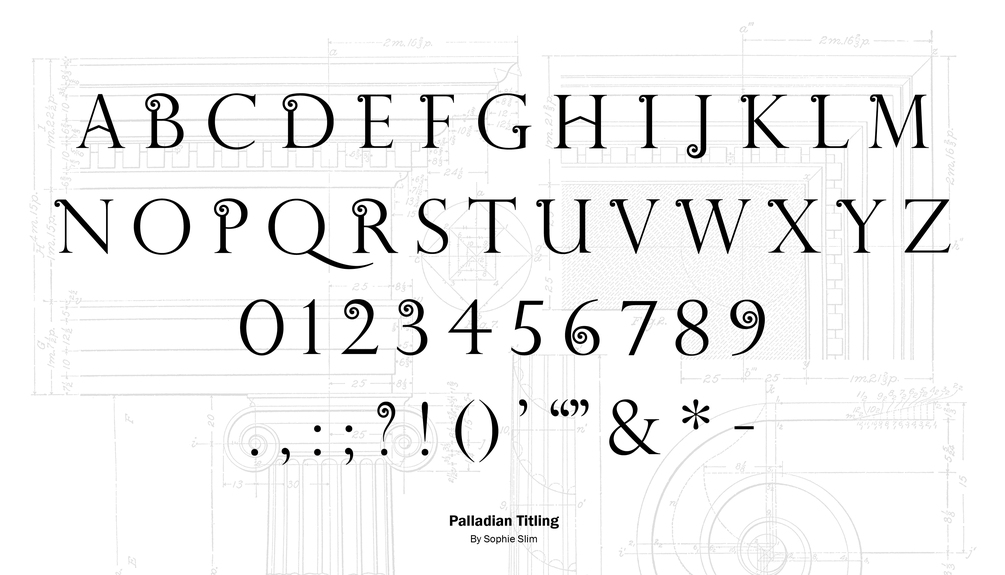
Palladian Titling
Palladian Titling is a display typeface based on architectural details found in classic Roman architecture. The spirals take inspiration from the volutes found on Ionic column capitals, with the stems acting as the column’s shaft. The angled crossbars reflect the shape of the pediments seen on buildings throughout Rome, such as the Pantheon.